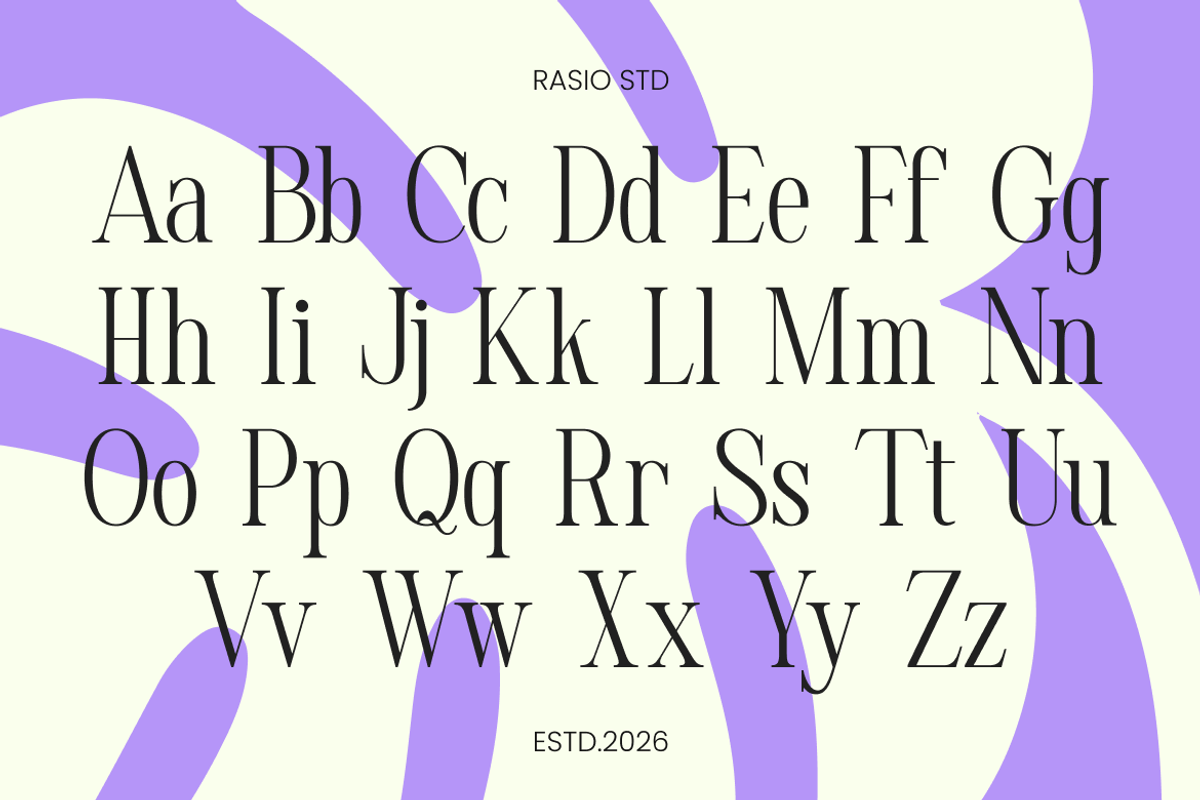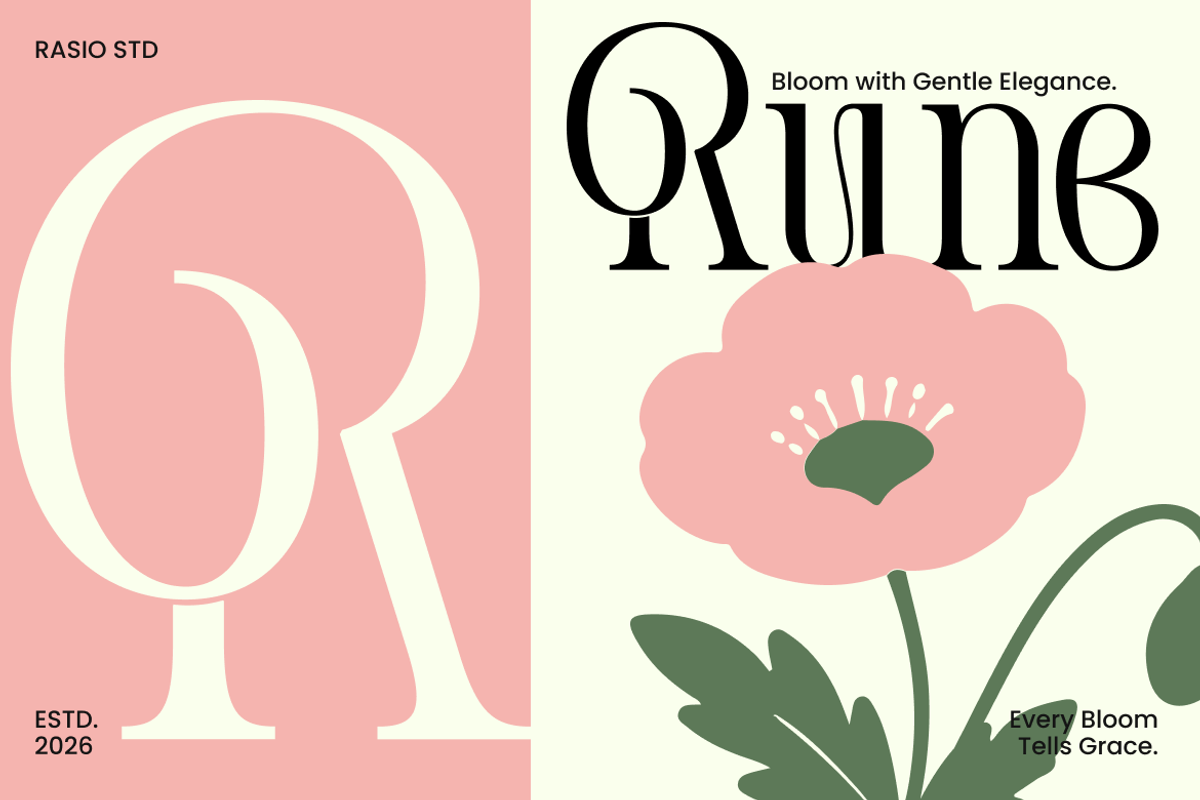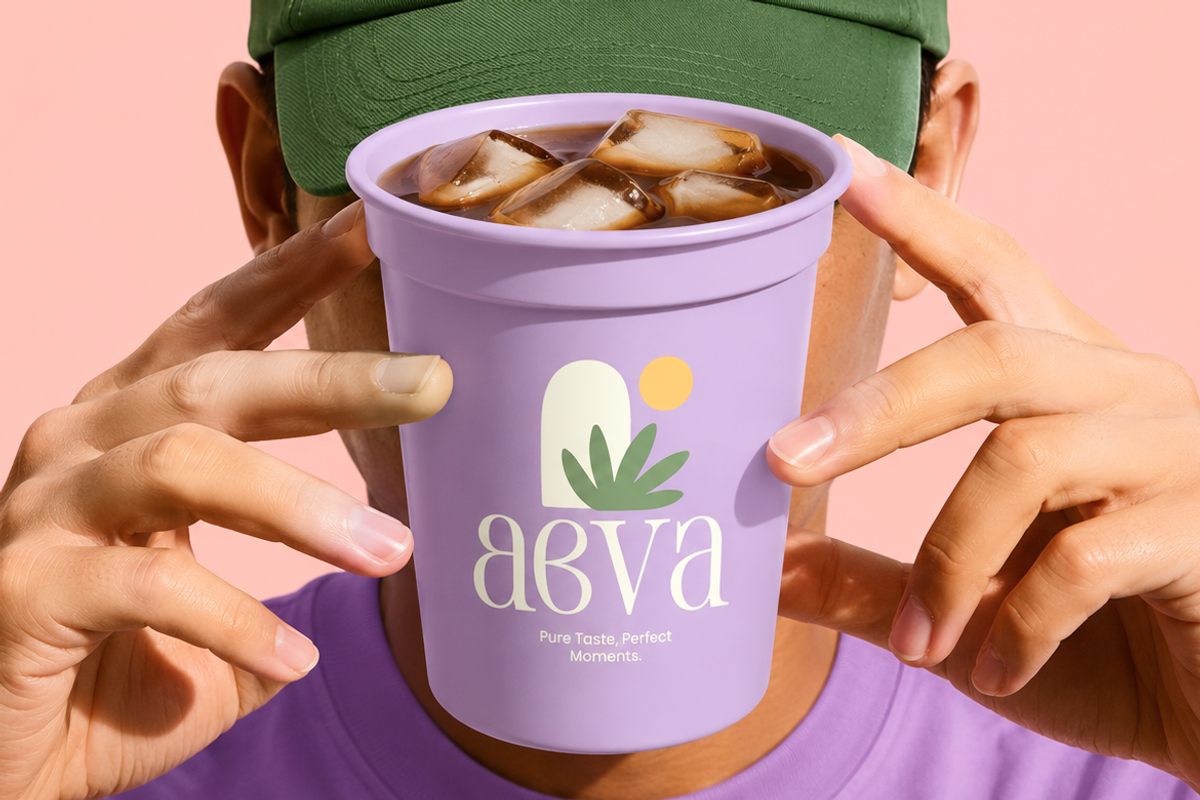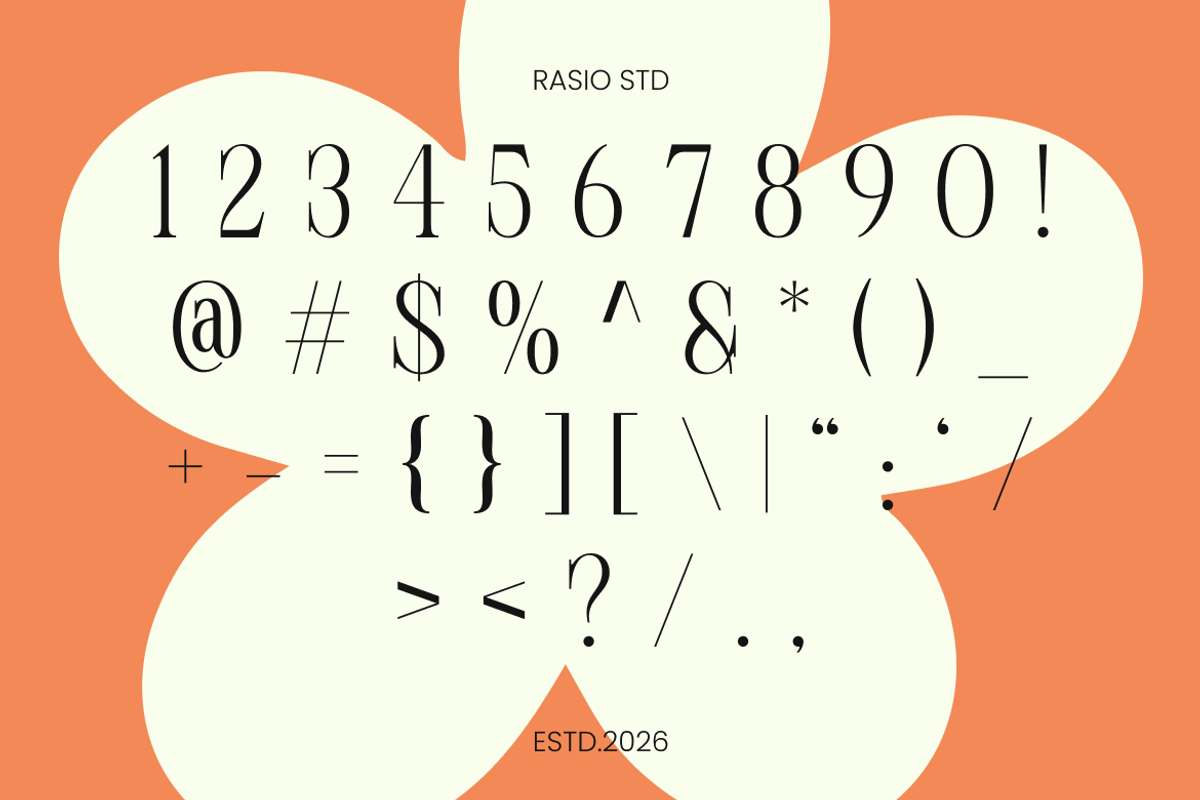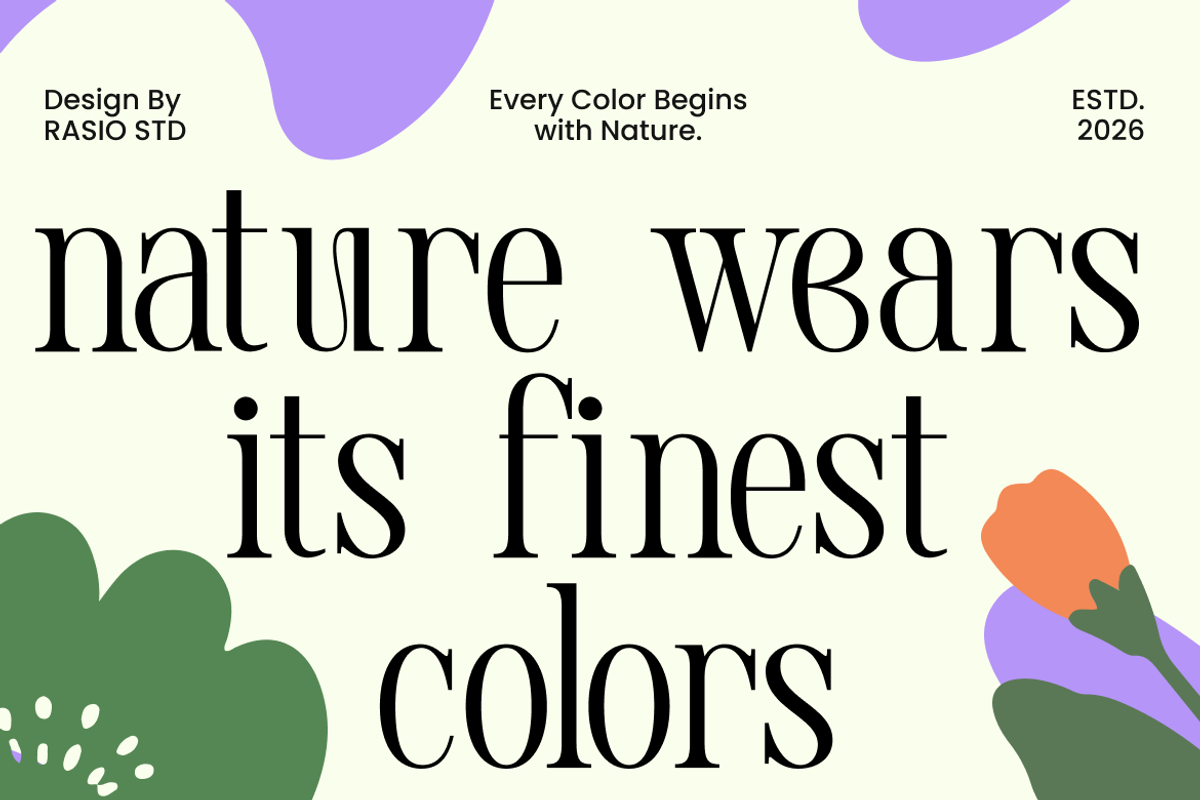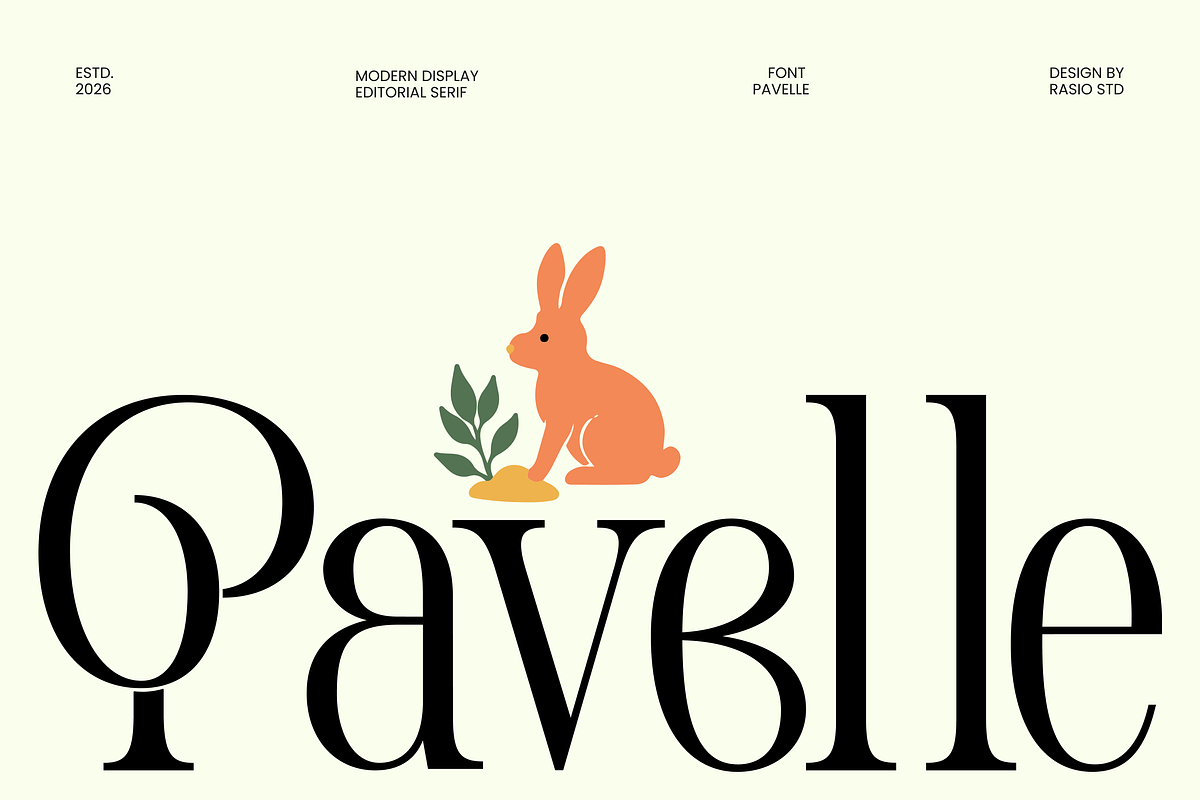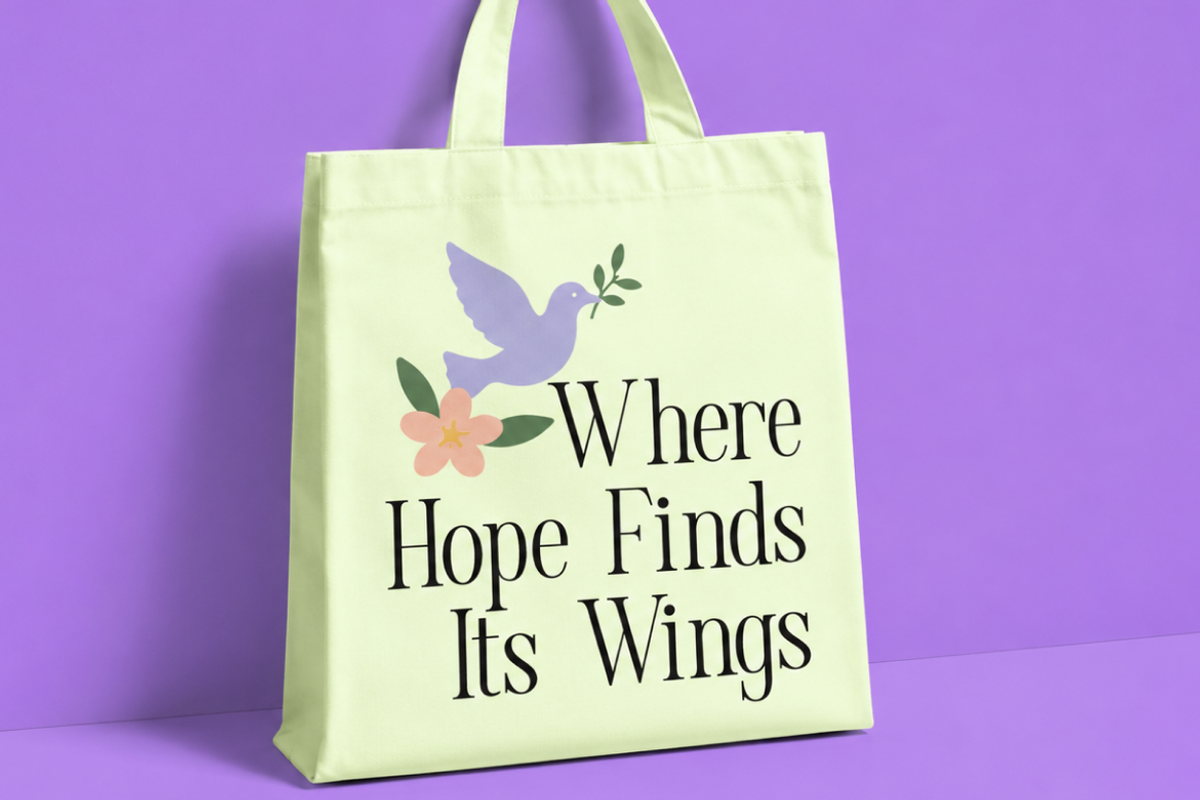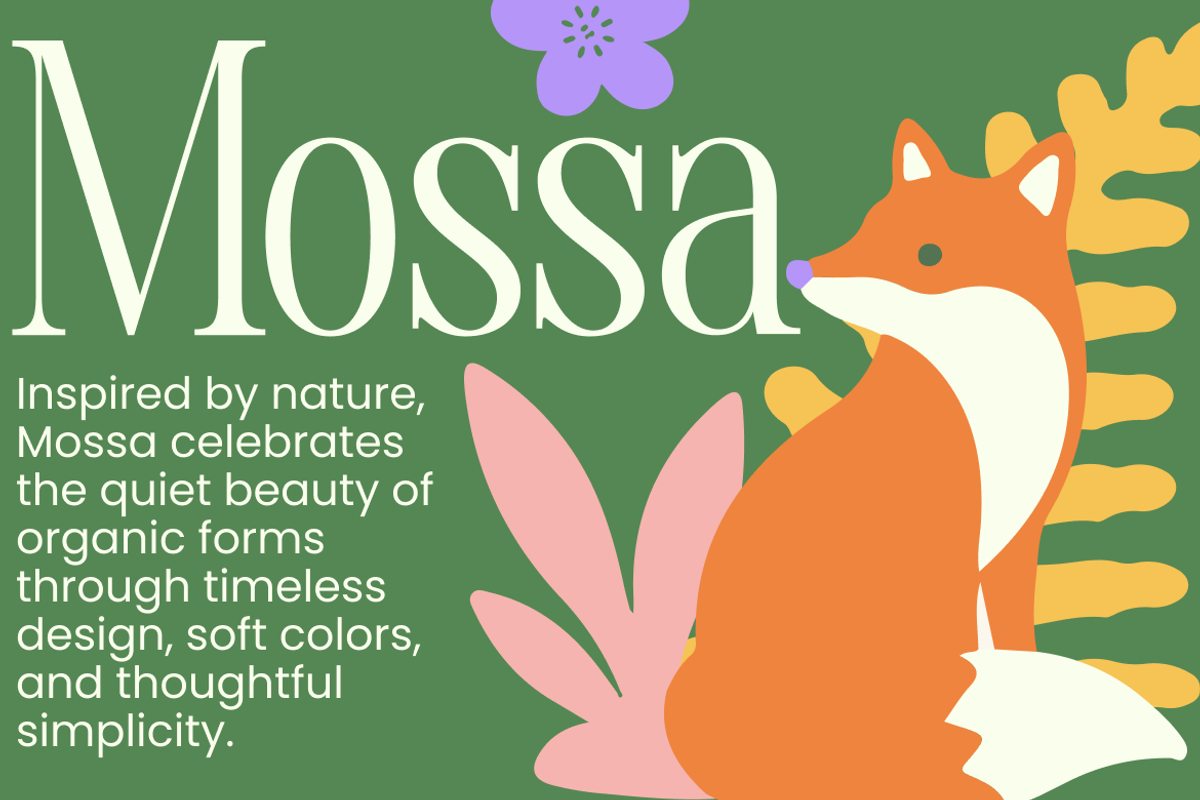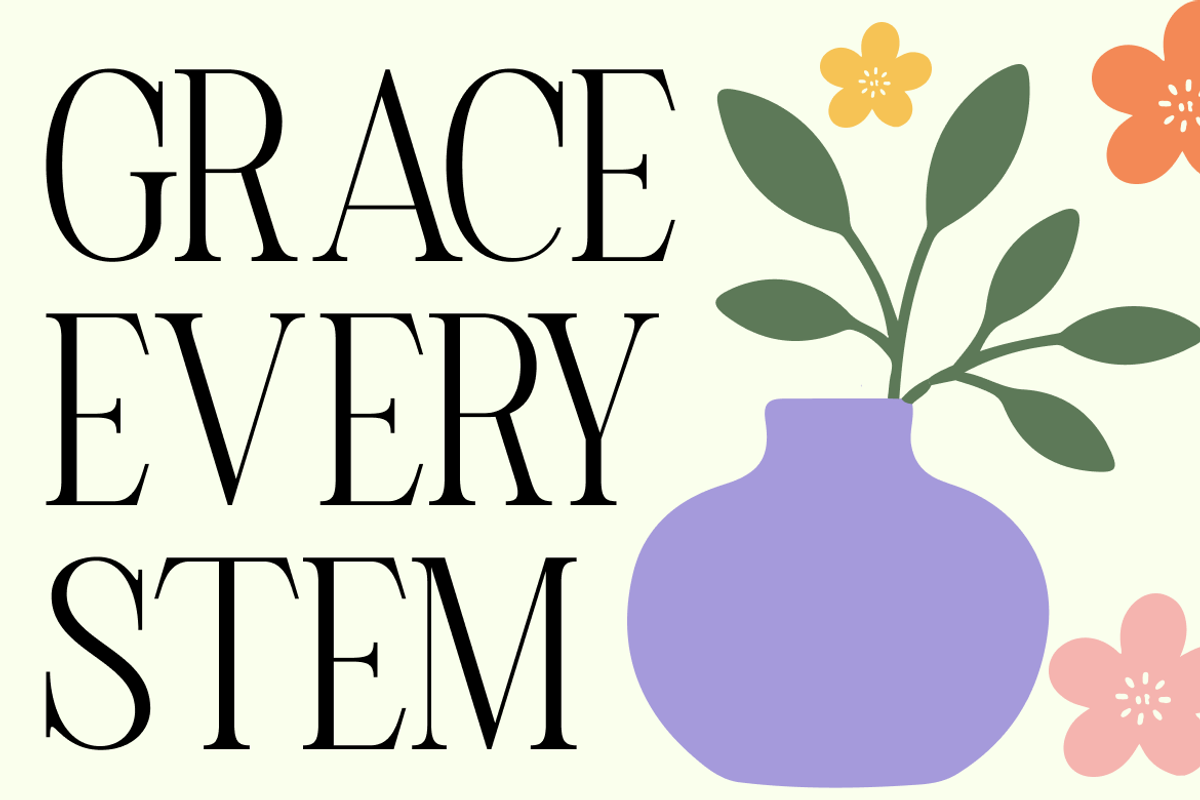
Pavelle Modern Editorial Serif Font
Pavelle Modern Editorial Serif Font is a sophisticated modern editorial display serif crafted for designers who appreciate timeless elegance with a contemporary edge. Built with striking high-contrast strokes, refined serif terminals, and gracefully elongated proportions, the typeface captures the beauty of classic editorial typography while introducing a cleaner, more modern silhouette. Every character is carefully balanced to create smooth visual flow, allowing headlines to appear luxurious, confident, and effortlessly refined. The combination of delicate curves, crisp transitions, and generous spacing gives Pavelle a distinctive personality that feels both graceful and highly readable at large display sizes.
Designed to become the focal point of a composition, Pavelle excels wherever typography needs to communicate prestige and style. Its elegant letterforms are ideal for fashion campaigns, luxury branding, magazine covers, beauty and cosmetic packaging, jewelry collections, boutique logos, hotel identities, premium product labels, wedding stationery, restaurant branding, and lifestyle publications. The font pairs beautifully with minimalist layouts, photography-driven designs, and modern editorial compositions, allowing designers to create visually balanced layouts that feel polished without excessive decoration.
High-contrast serif construction with refined editorial proportions
Gracefully elongated letterforms for an elegant visual presence
Delicate curves paired with sharp serif details for sophisticated character
Balanced stroke transitions that enhance clarity at large display sizes
Carefully crafted spacing for harmonious headlines and premium typography
High-end brand identities that require timeless sophistication
Fashion editorials, magazine headlines, and luxury publication design
Premium packaging for beauty, fragrance, jewelry, and boutique products
Elegant invitations, certificates, menus, and exclusive event collateral
Digital campaigns, portfolio showcases, and refined visual branding systems
Supports numerals, punctuation, and extensive symbol set
Discover Pavelle designed for sophisticated visual storytelling.